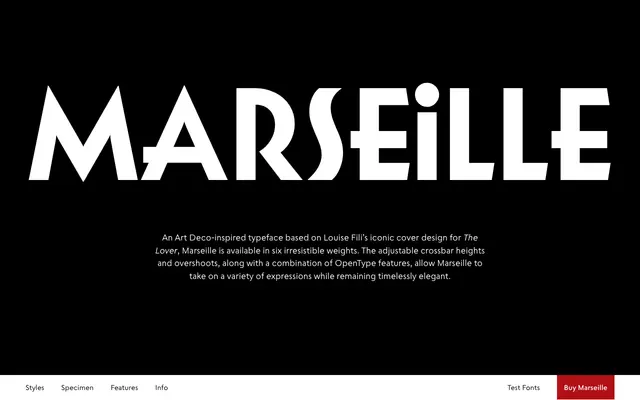
Marseille
Tipofili · Louise Fili, Andy Anzollitto, Nick Misani · 2017
A six-weight Art Deco display family derived from Louise Fili's cover lettering for Marguerite Duras's 'The Lover', with extensive OpenType features for crossbar and form variation.
Rooted in the lettering Louise Fili created for her iconic book cover design, Marseille brings a refined Art Deco sensibility across six weights from Thin to Bold. Eight stylistic sets allow fine control over crossbar heights, 'e' forms, alternate 'S', dotted 'I' and dieresis treatment, giving the typeface considerable expressive range from understated to ornate. Production was handled by Schriftlabor, with expanded language support added in 2018 covering over 300 Latin-script languages.
Marseille is a display typeface drawing directly from Art Deco letterform traditions, with characteristic geometric elegance and adjustable crossbar heights that place it firmly outside workhorse text categories.